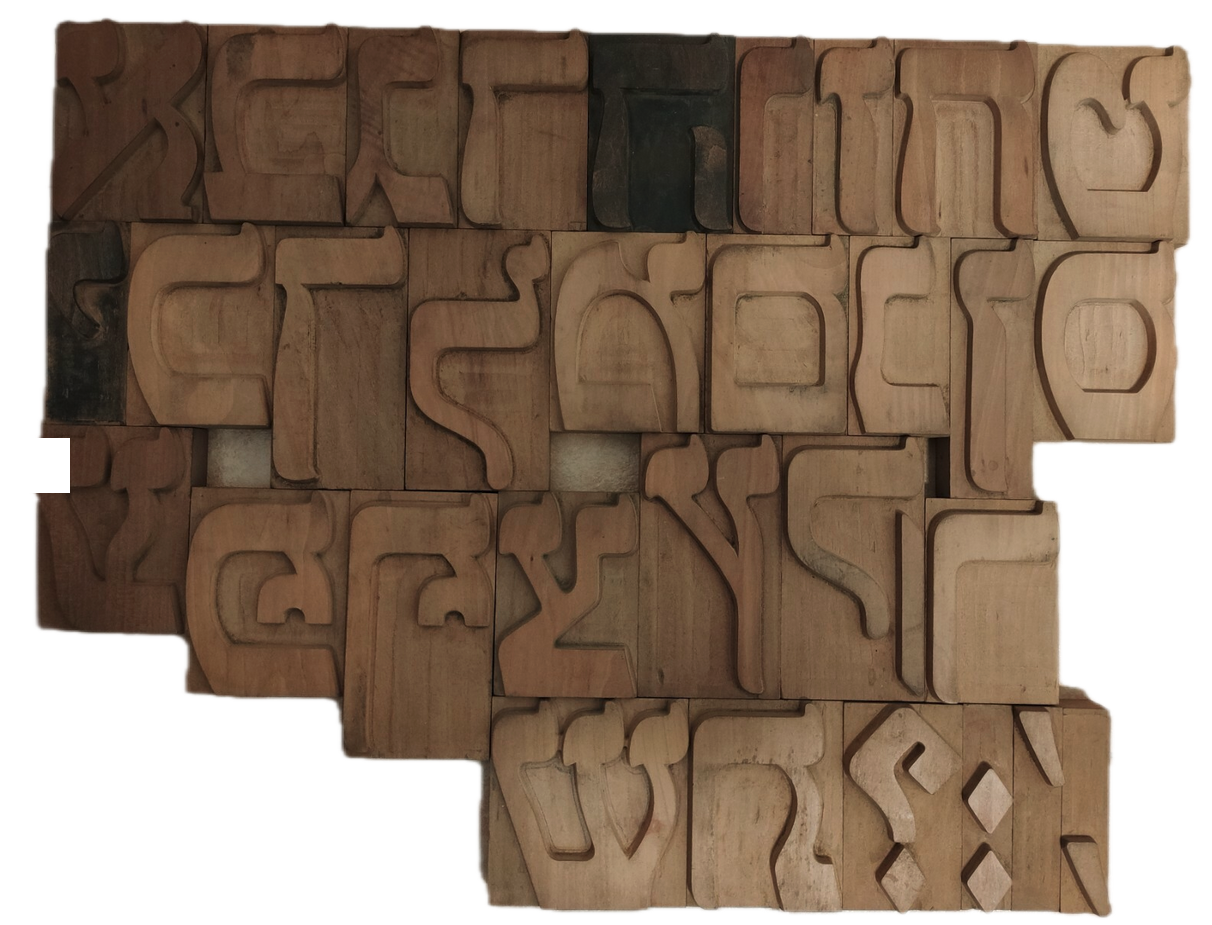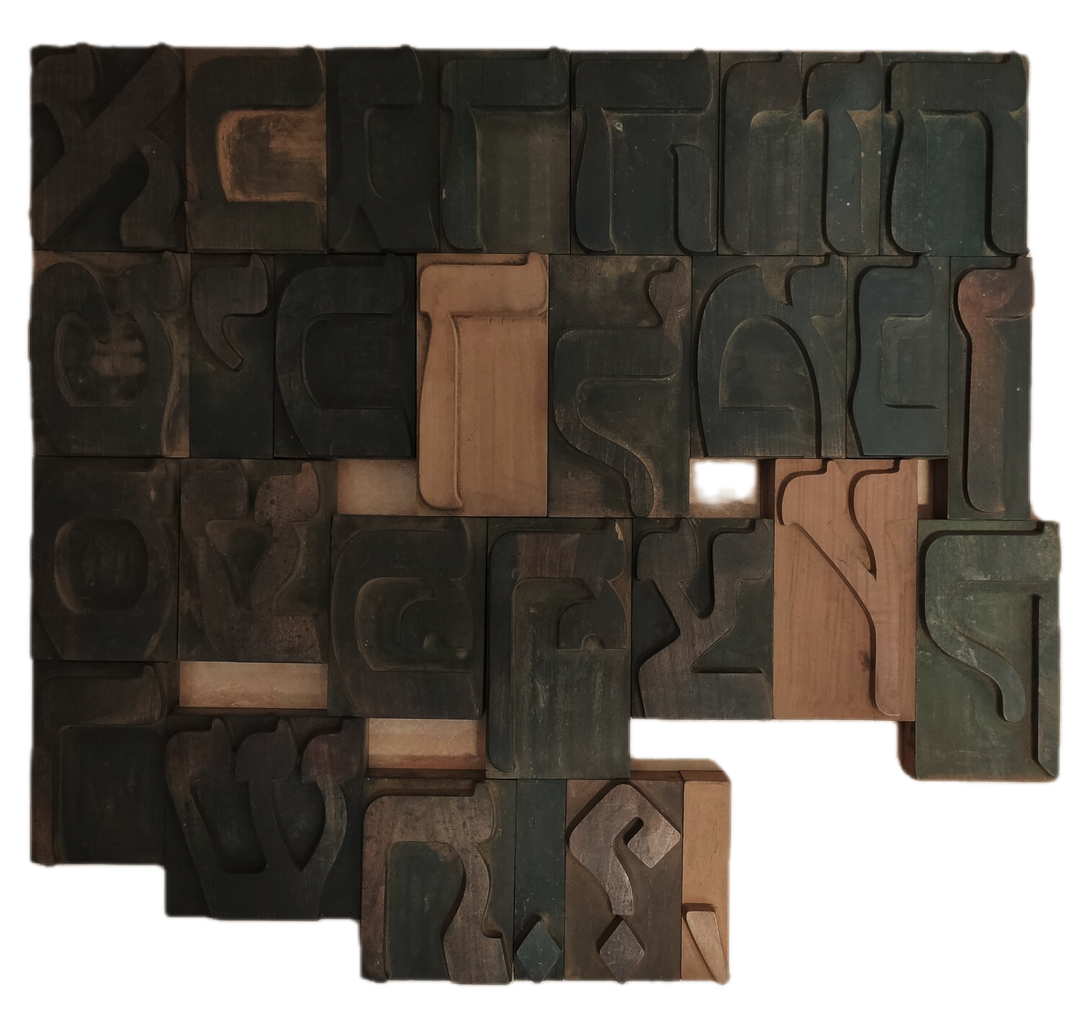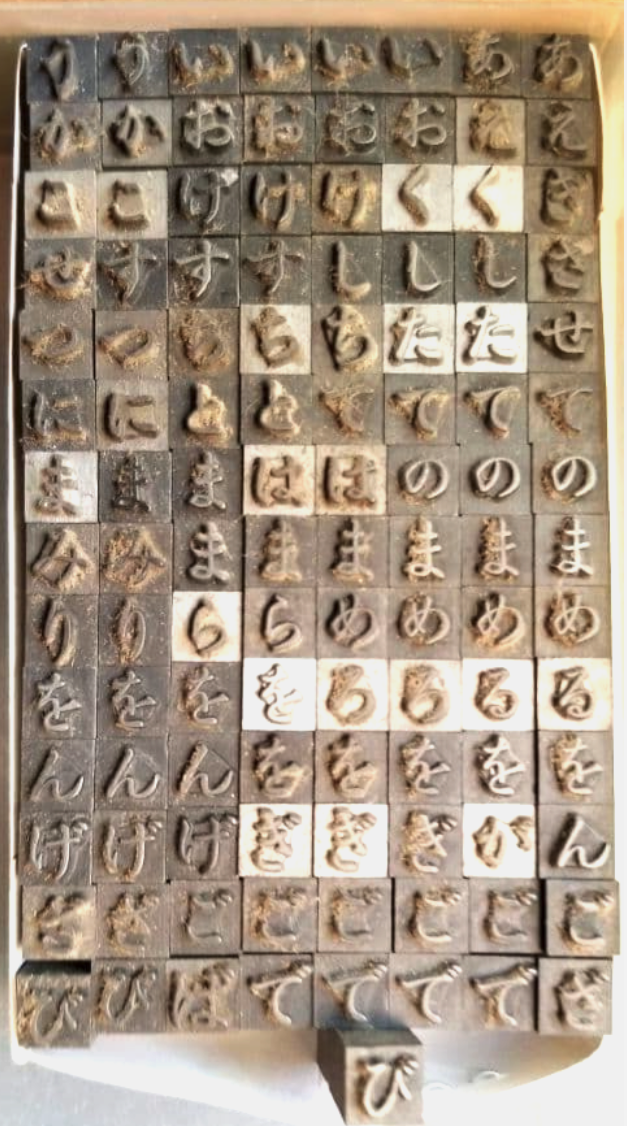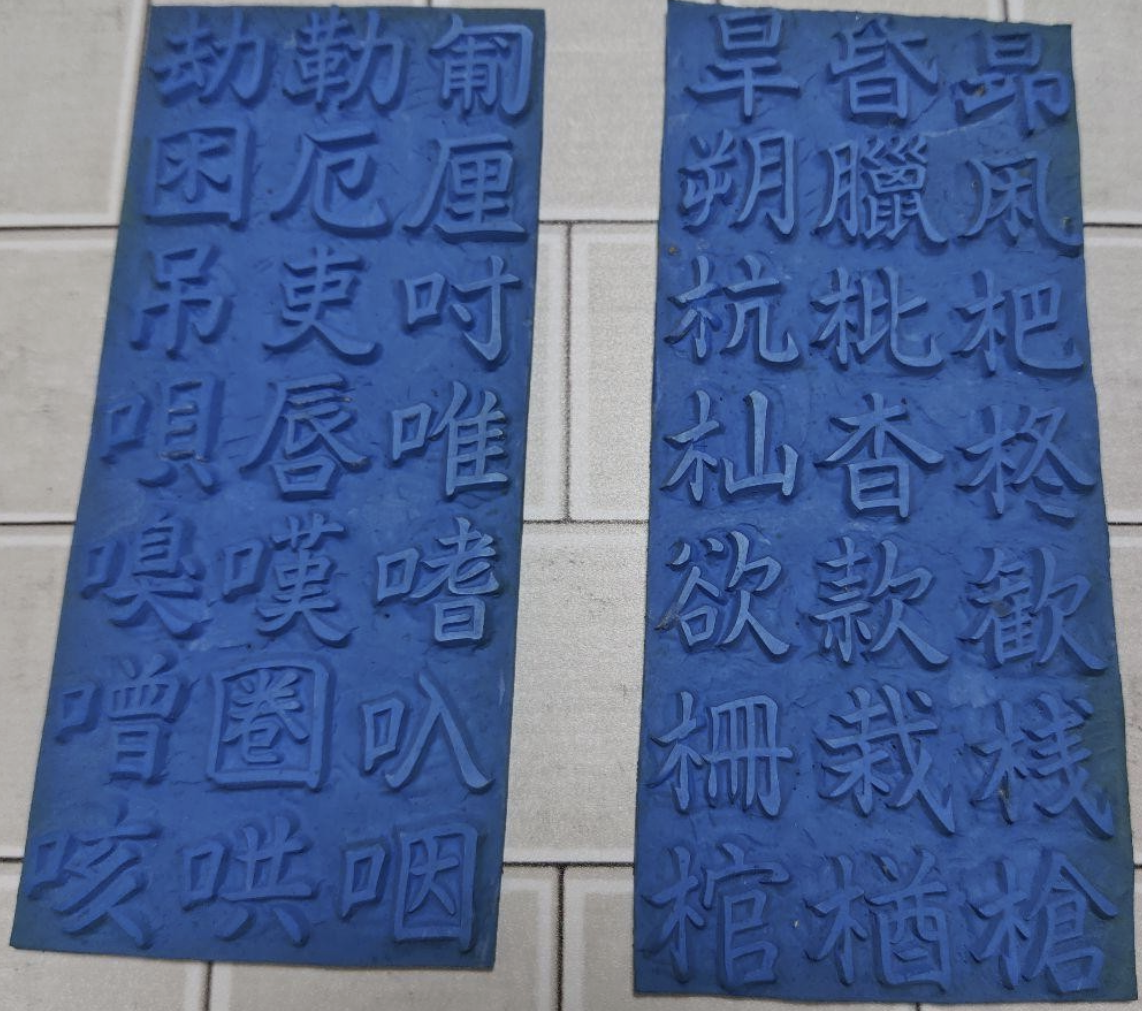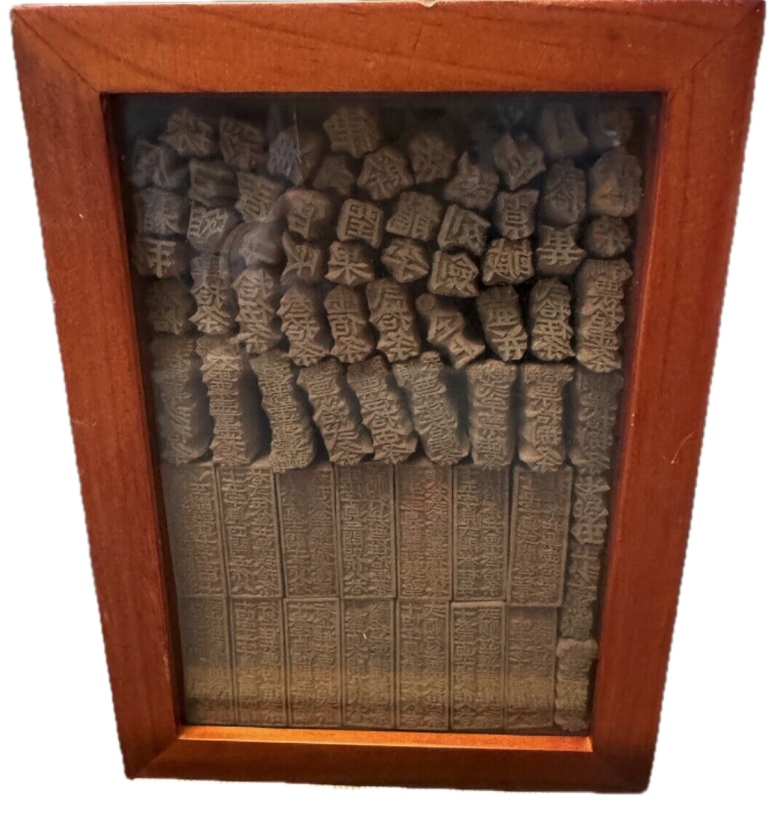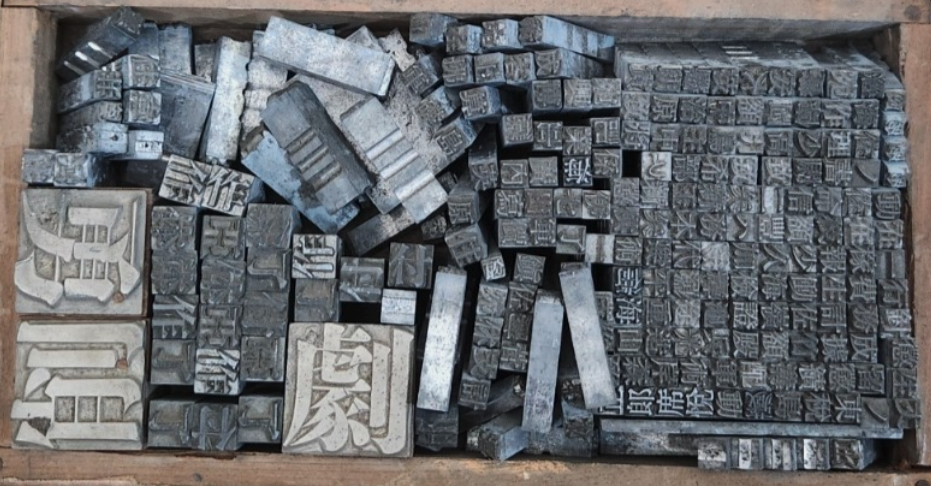
Photos of movable type in a variety of scripts & variants, not limited to Latin.
(A "sort" is one physical unit of letterpress type, e.g. an "x").
Cherokee (New, possibly Swamp Press Foundry)
Devanagari (Example 1)
Devanagari (Example 2)
Devanagari (Example 3)
Greek Type (Example 1)
Greek Type (Example 2)
Gujarati Hand Carved Matricies (Per Seller)
Hebrew Pomegranate Catchword by Visconti
Hebrew Wood Type (Example 1)
Hebrew Wood Type (Example 2)
Hebrew Wood Type (Example 3)
Hebrew Wood Type (Example 4)
Hebrew Wood Type (Example 5)
Hebrew Wood Type (Example 6)
Hebrew Wood Type (Example 7)
Japanese Hiragana
Mincho Font
SLab Swamp Press Braille
SLab Swamp Press Visual Braille
Uncertain (Example 1)
Uncertain (Example 2)